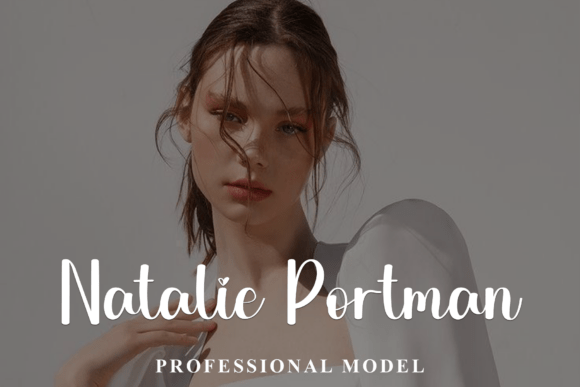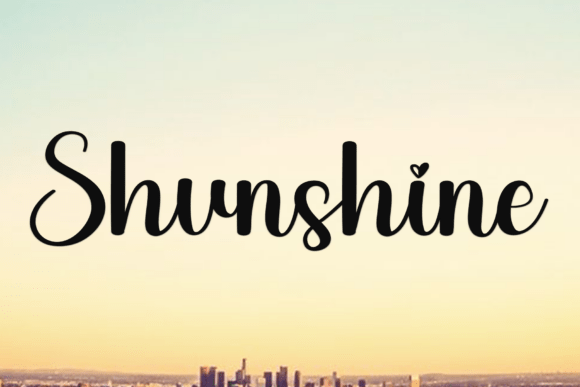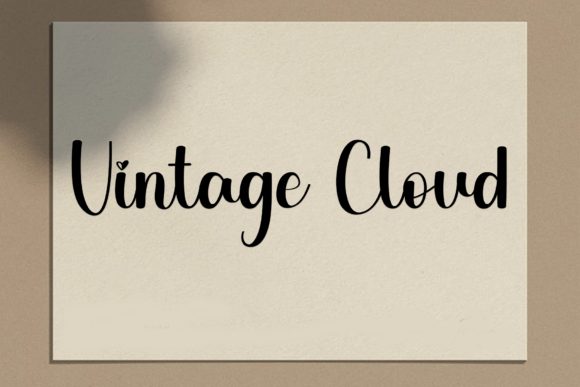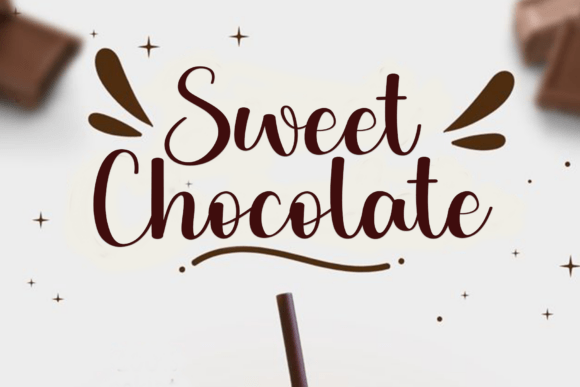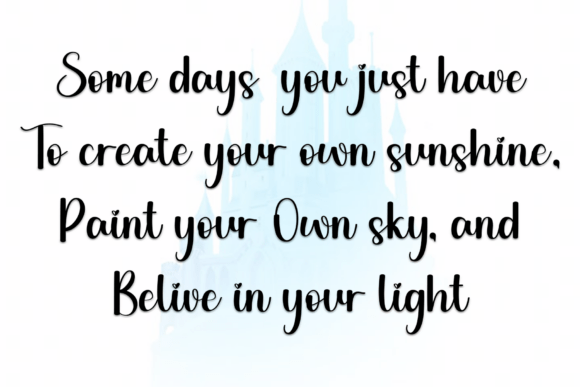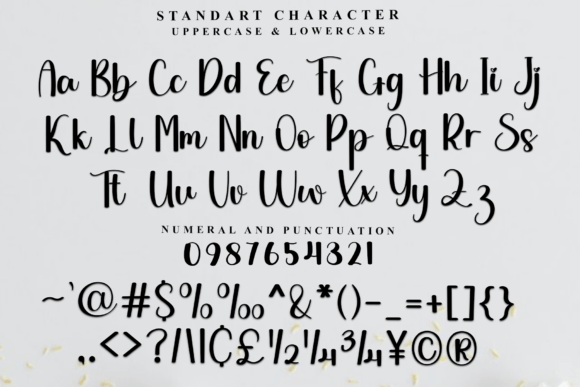
The Delicious Font: A Timeless Choice for Creative Designs
Have you ever been in the middle of a design project, and suddenly, you’re stuck on finding the perfect font? I recall a particularly frustrating moment when I was working on a branding project for a client, and I just couldn’t find a font that captured the essence of their business. That’s when I stumbled upon the Delicious font, and it completely transformed my design. In this article, I’ll share my experience with this lovely and timeless handwritten font, and explore its features, uses, and alternatives.
A Personal Review of Delicious Font
I’m excited to share my honest review of the Delicious font. Here’s what I love about it:
- ✨ Unique and beautiful touch: Every letter has a distinct character that adds a personal touch to your designs.
- ✅ Versatile: Delicious font is perfect for creating eye-catching logos, branding, and quotes.
- 💫 Timeless: The font’s classic look ensures it won’t go out of style anytime soon.
- 🎨 Great for designs that require a personal touch: The font’s handwritten nature makes it ideal for projects that need a human touch.
While Delicious font is amazing, it’s not without its quirks. Here are a few things to keep in mind:
- 🤔 Limited use in formal designs: The font’s handwritten nature may not be suitable for formal or corporate designs.
- ⚠️ May not work well in small sizes: The font’s intricate details may get lost when used in small sizes.
The Story Behind Delicious Font
Delicious font was created with the intention of providing a unique and beautiful handwritten font for designers. The designer aimed to create a font that would add a personal touch to designs, making them more relatable and engaging. The font’s classic look ensures it will remain timeless, and its versatility makes it suitable for a wide range of design projects.
| Is Delicious font suitable for formal designs? | No, Delicious font’s handwritten nature makes it more suitable for informal and personal designs. |
| Does Delicious font support OpenType features? | Yes, Delicious font supports OpenType features, which allow you to access glyphs and stylistic alternates. |